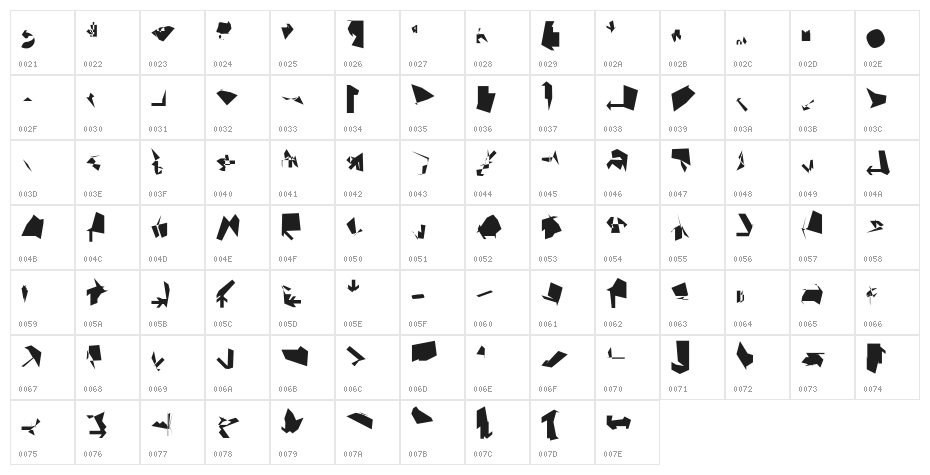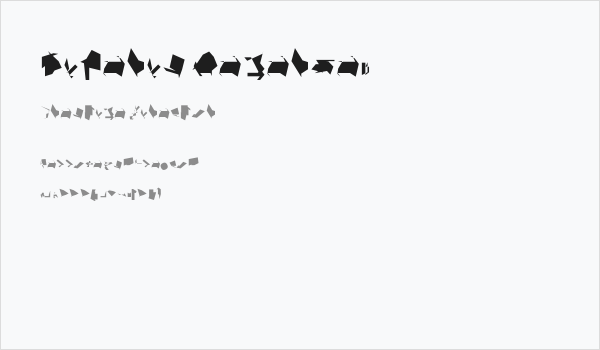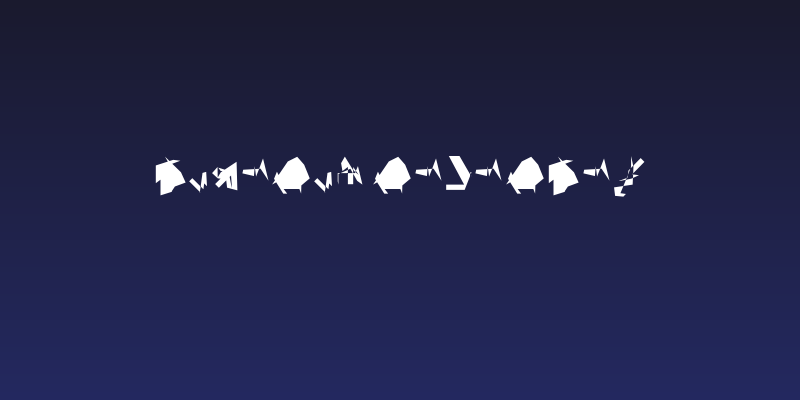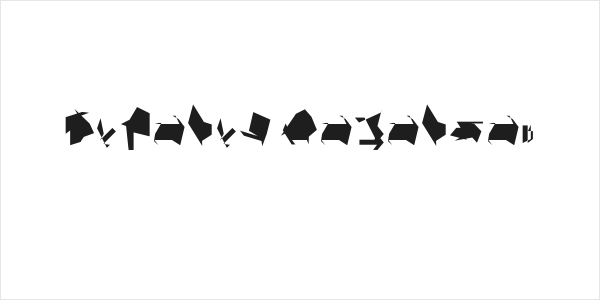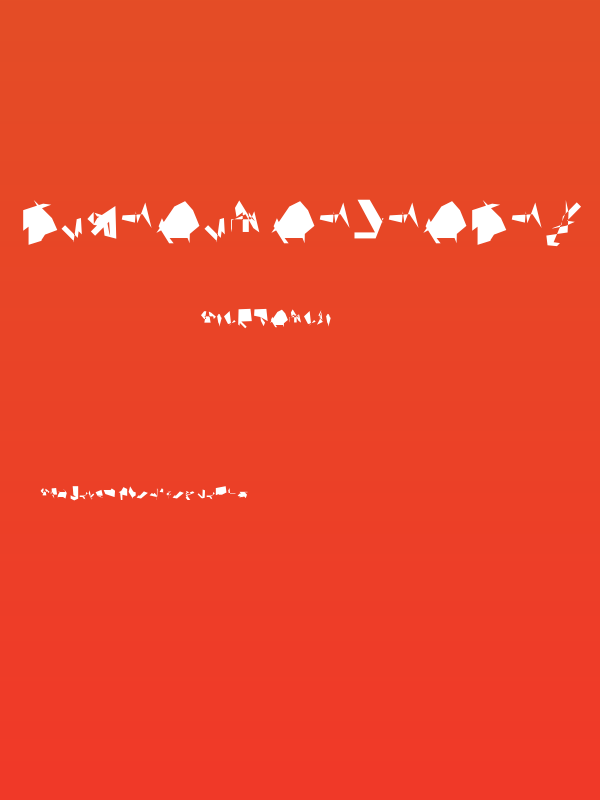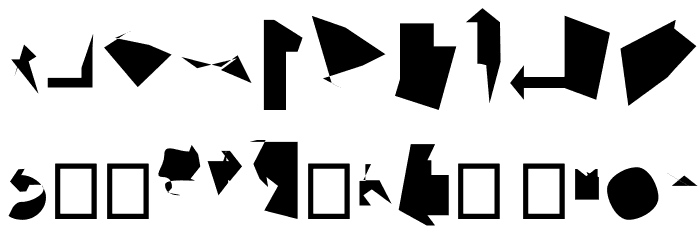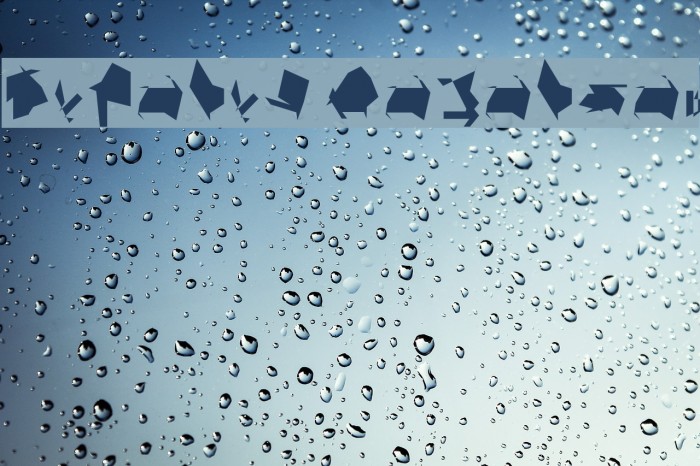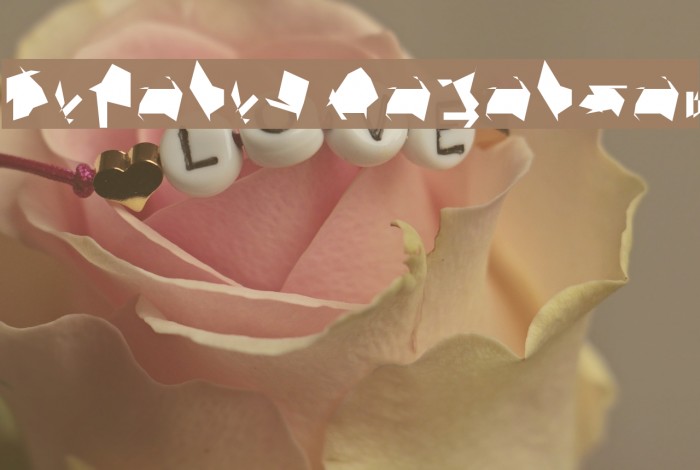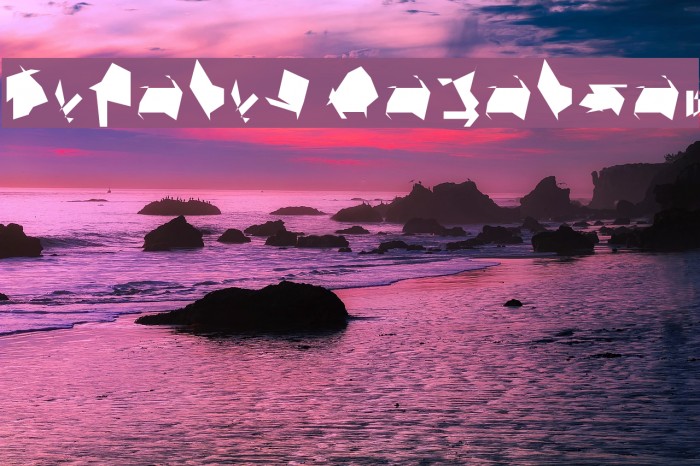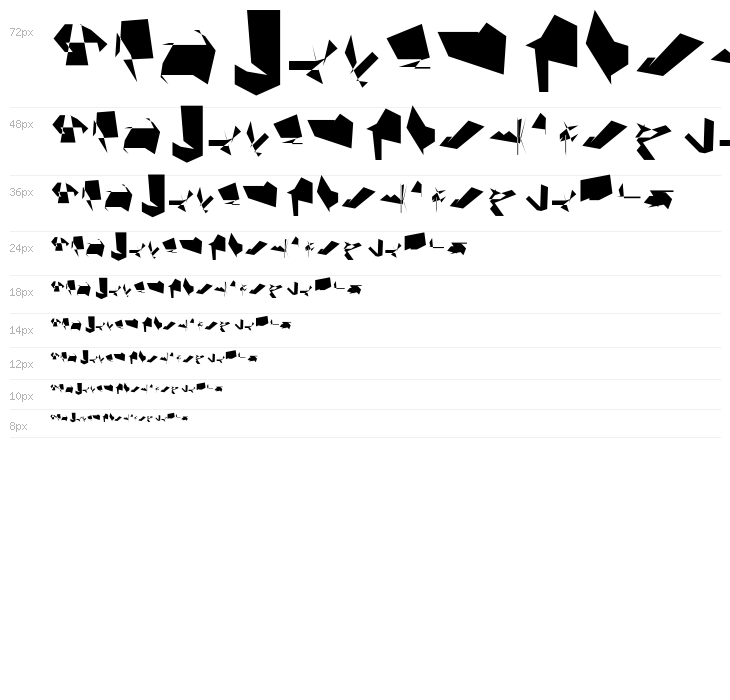
Siberia Reversed Font
Siberia Reversed Description
This font features a highly abstract and geometric design, with each character composed of sharp, angular shapes that create a fragmented appearance. The letters are not immediately recognizable, requiring a closer look to discern their form. This style gives the font a unique, avant-garde aesthetic, making it stand out in any design project. The characters are bold and striking, with a high level of contrast between the thick, solid shapes and the negative space. This font is not suited for body text due to its complexity and low legibility at smaller sizes, but it excels in creating a strong visual impact in headlines or artistic compositions.
| Overall Style | Modern, Avant-garde |
| Use Case | Headlines, Artistic compositions |
| Proposed Projects | Ideal for avant-garde posters, modern art projects, or experimental graphic design. |